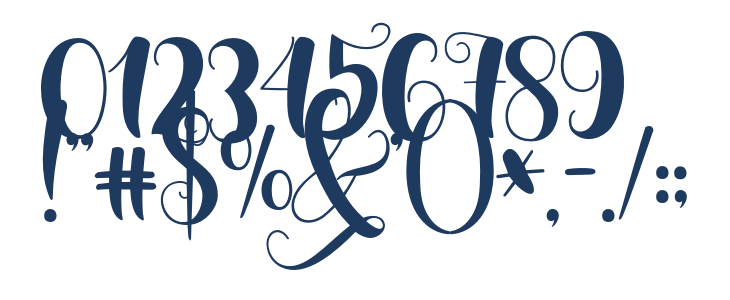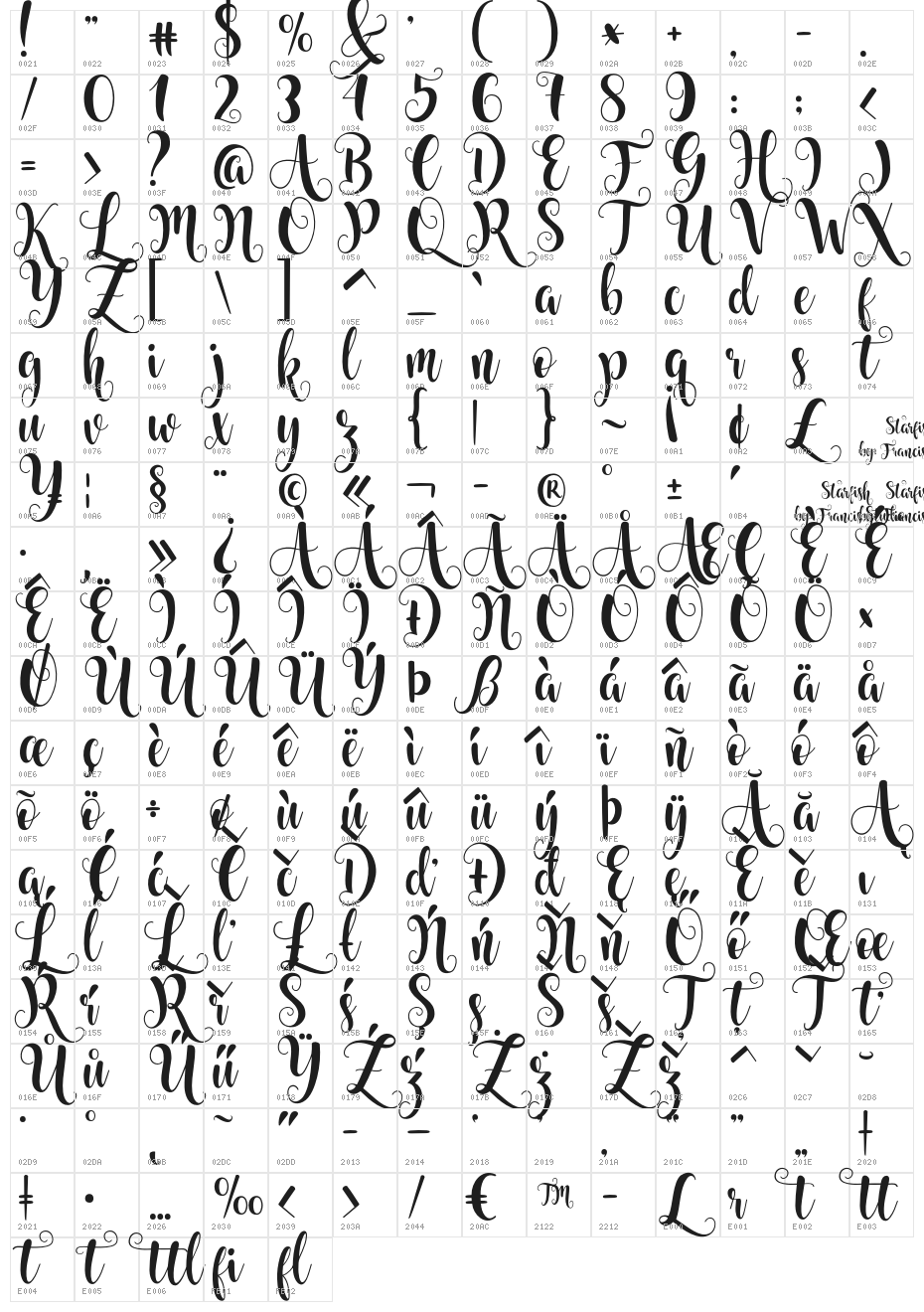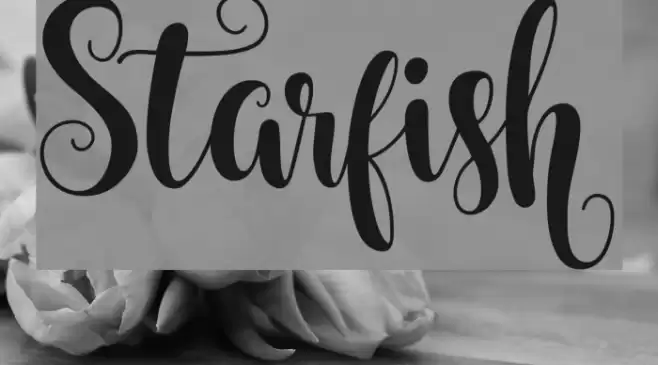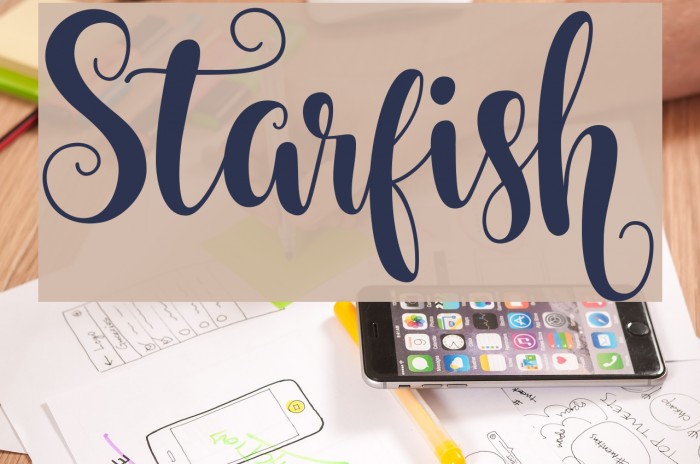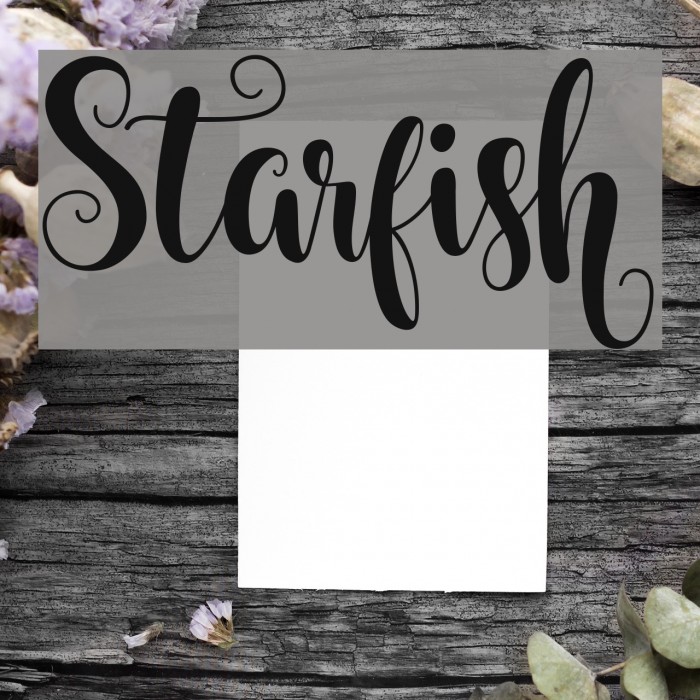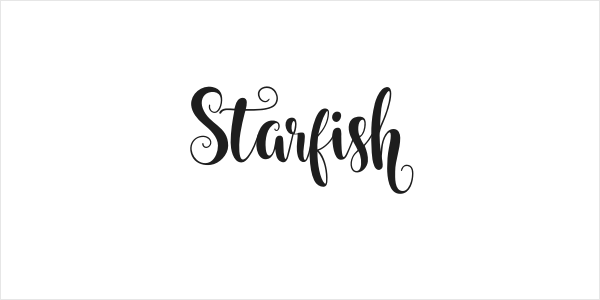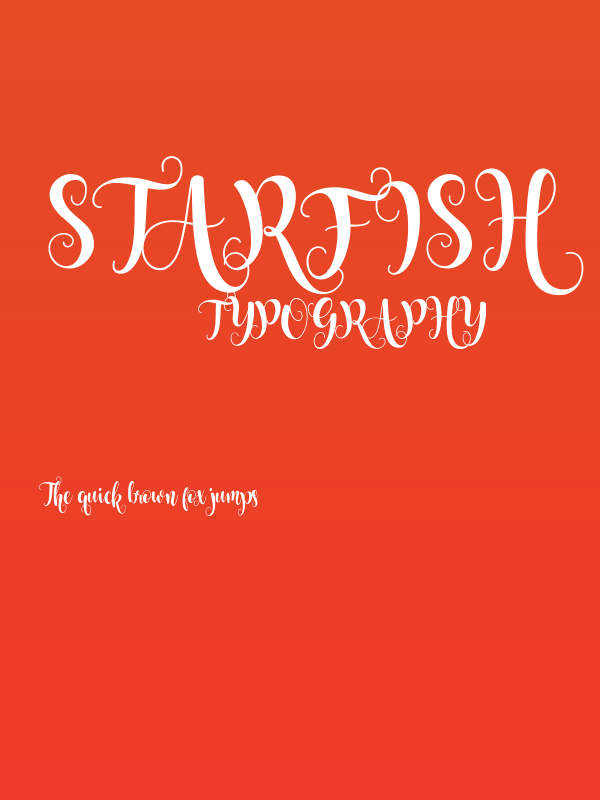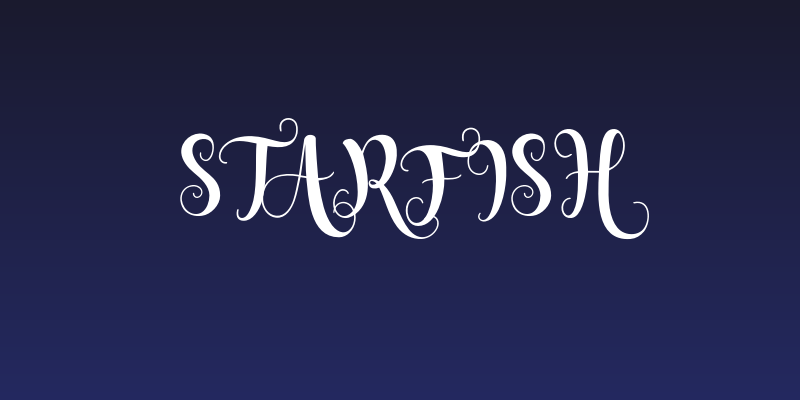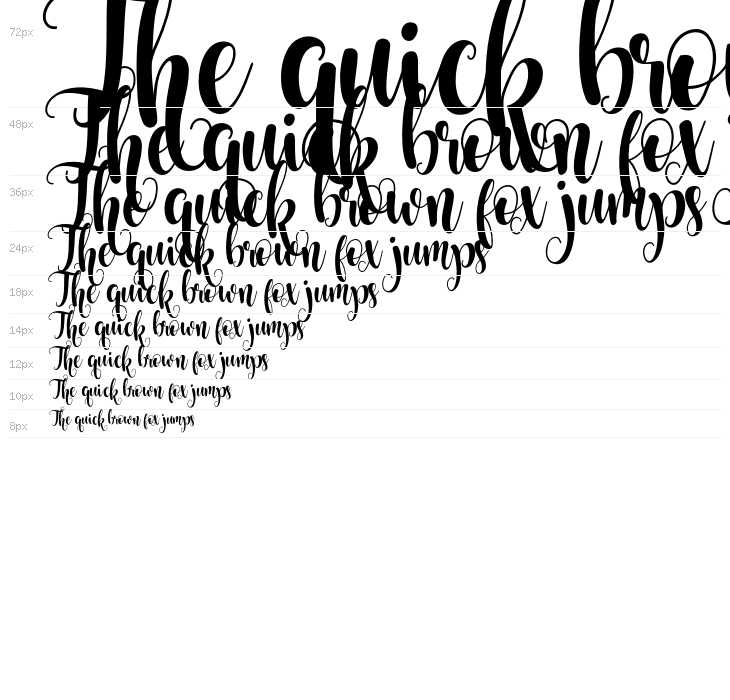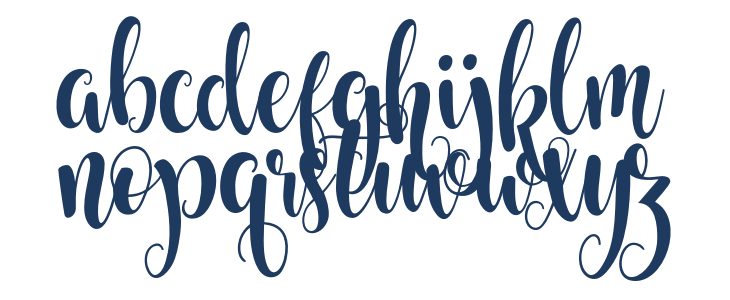
Starfish Font
Starfish Description
This font features an elegant and flowing script style, characterized by its ornate and decorative swirls. The uppercase letters are particularly elaborate, with intricate loops and flourishes that give a sense of sophistication and grace. The lowercase letters maintain a consistent style, with smooth curves and a slightly playful touch. Numbers and special characters are designed to match the overall aesthetic, ensuring a cohesive look. This font is perfect for projects that require a touch of elegance and creativity.